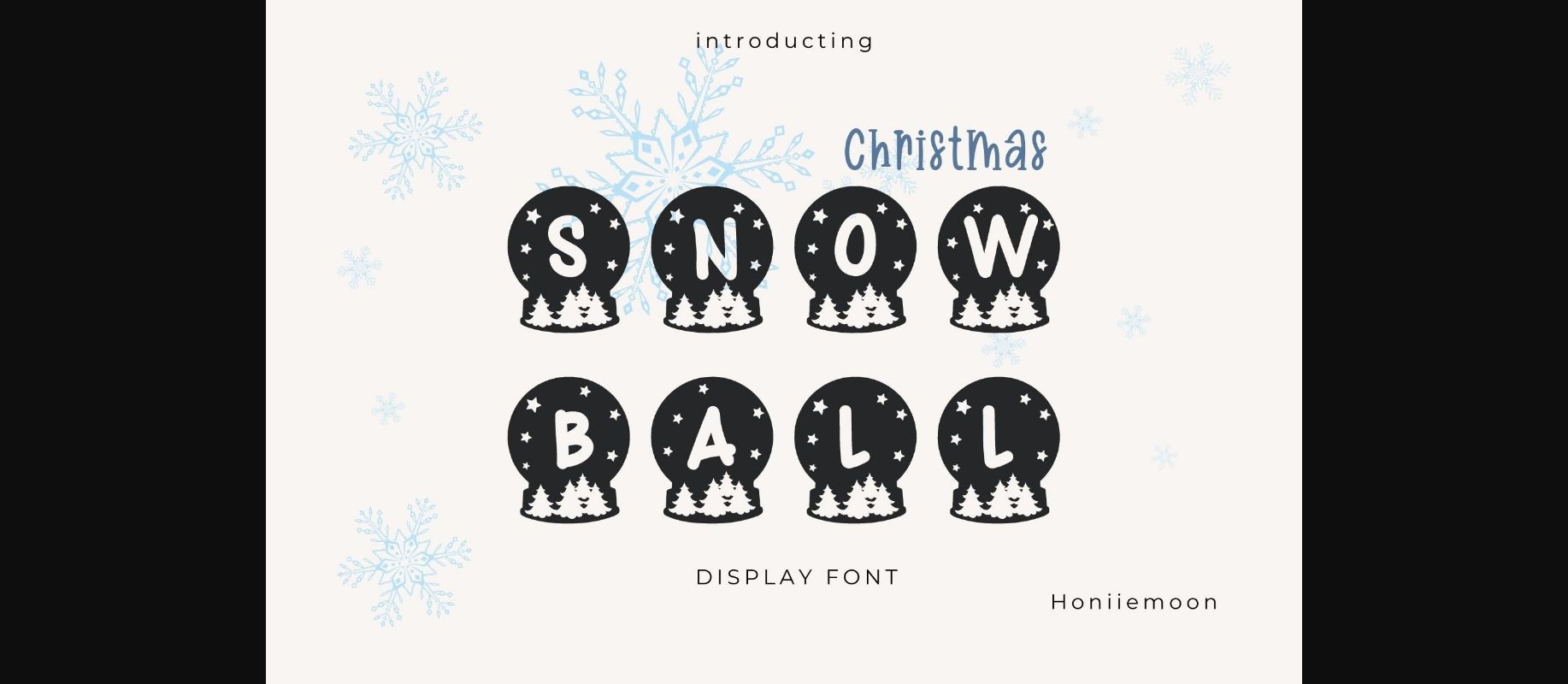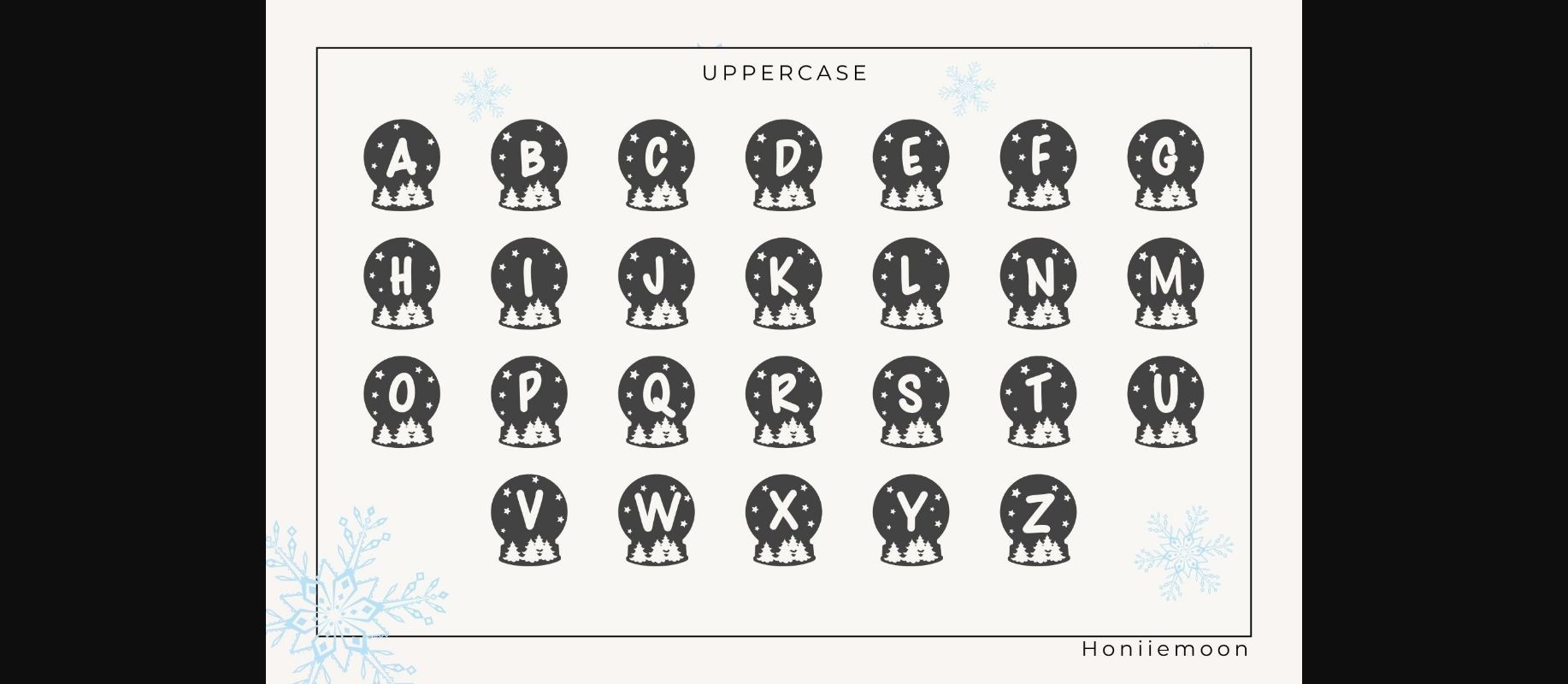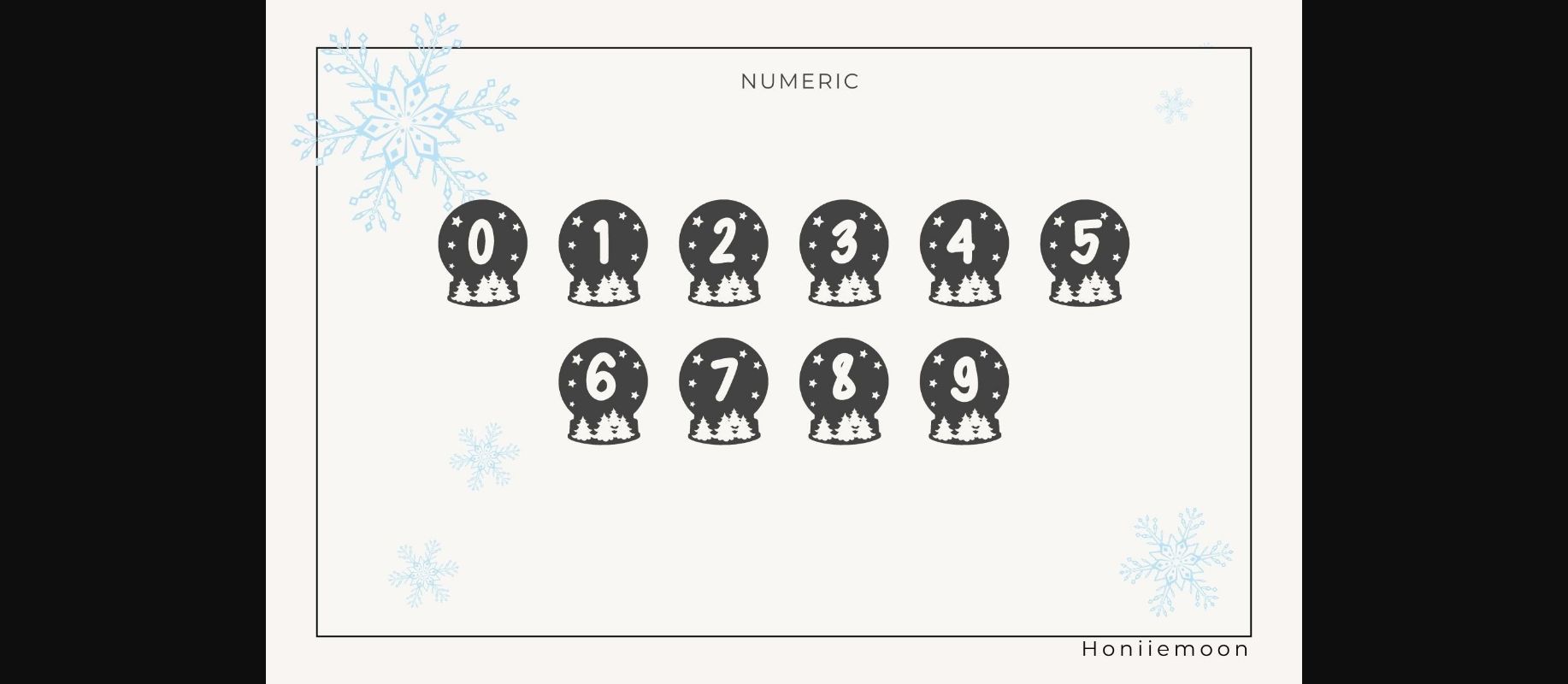
Christmas Snowball Font
About Christmas Snowball Font
Christmas Snowball is a cool and fun decorative font. It looks both cute and jolly and it will enhance each of your designs. The only limit is your imagination. Add this cute and festive font to each of your creative ideas and notice how it makes them come alive!